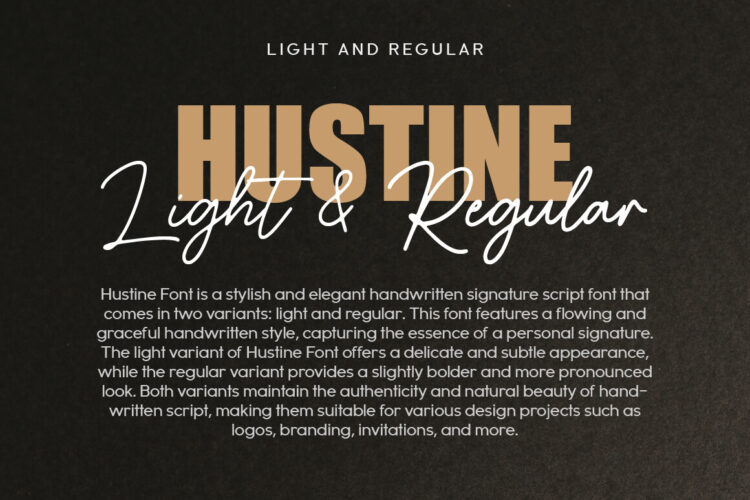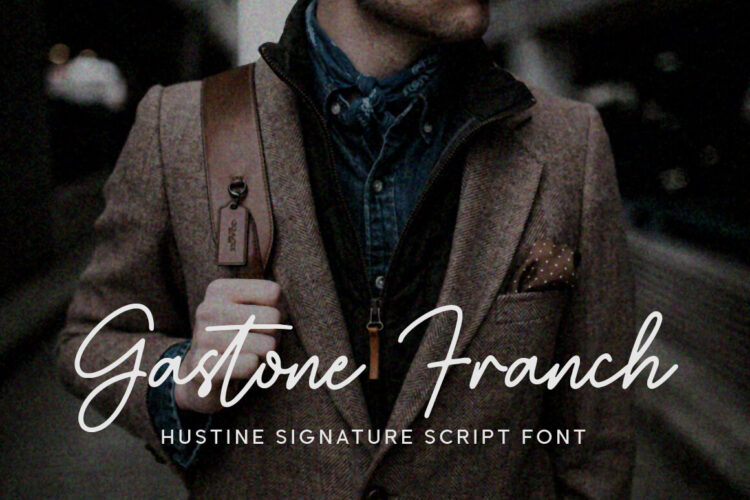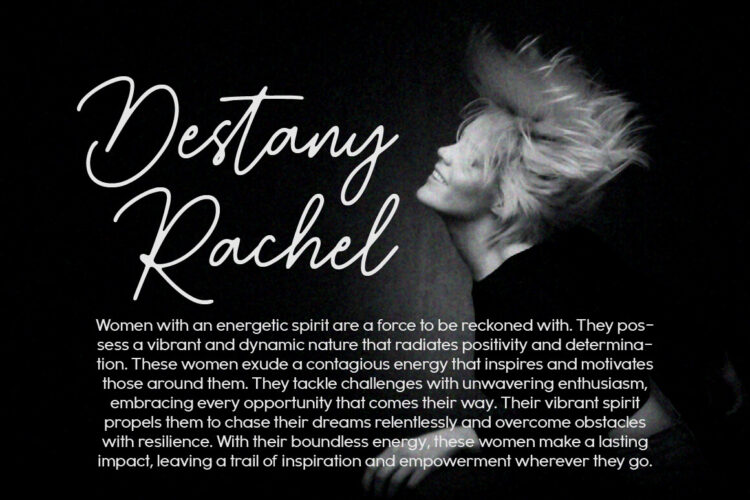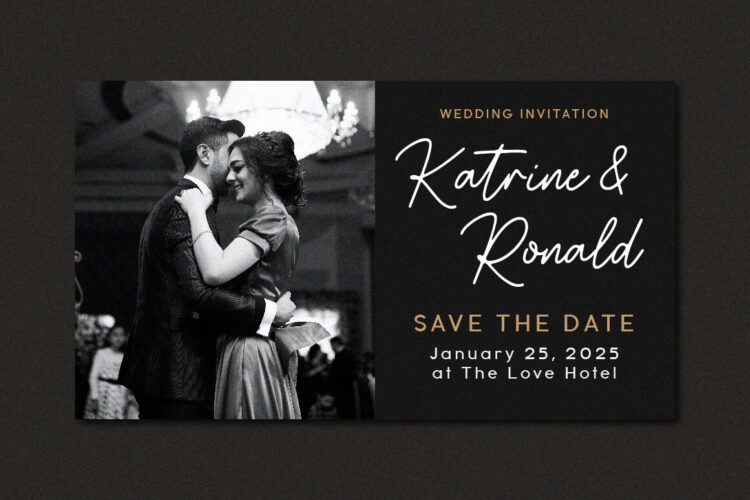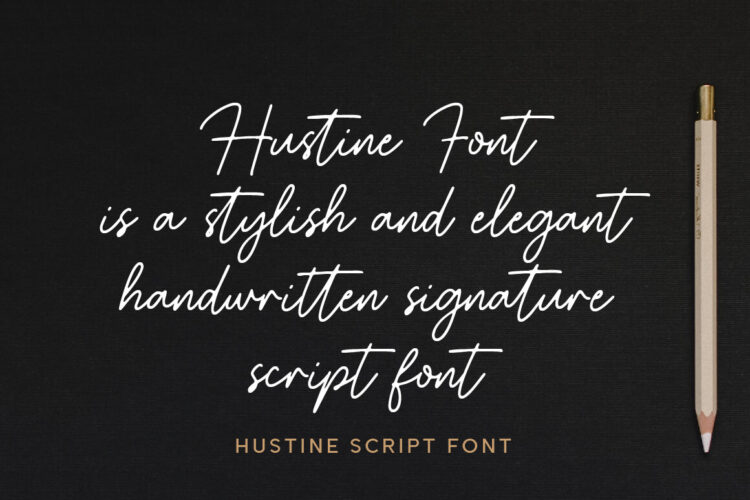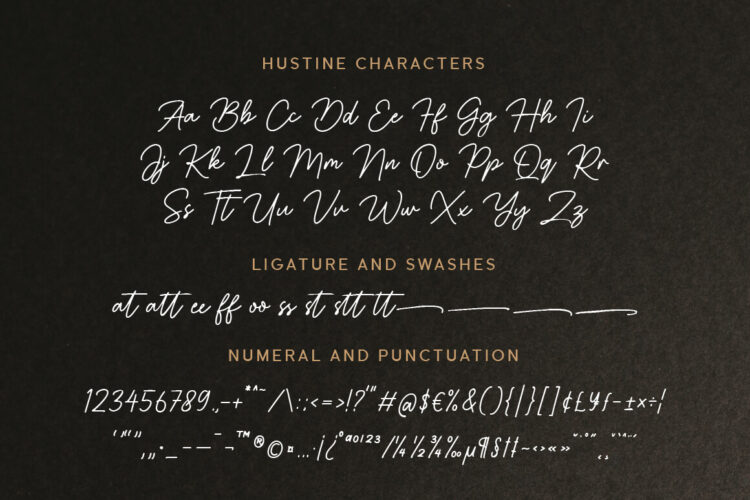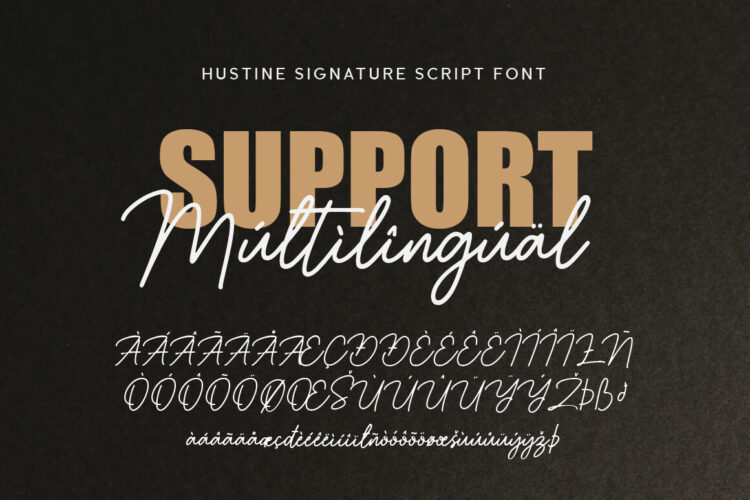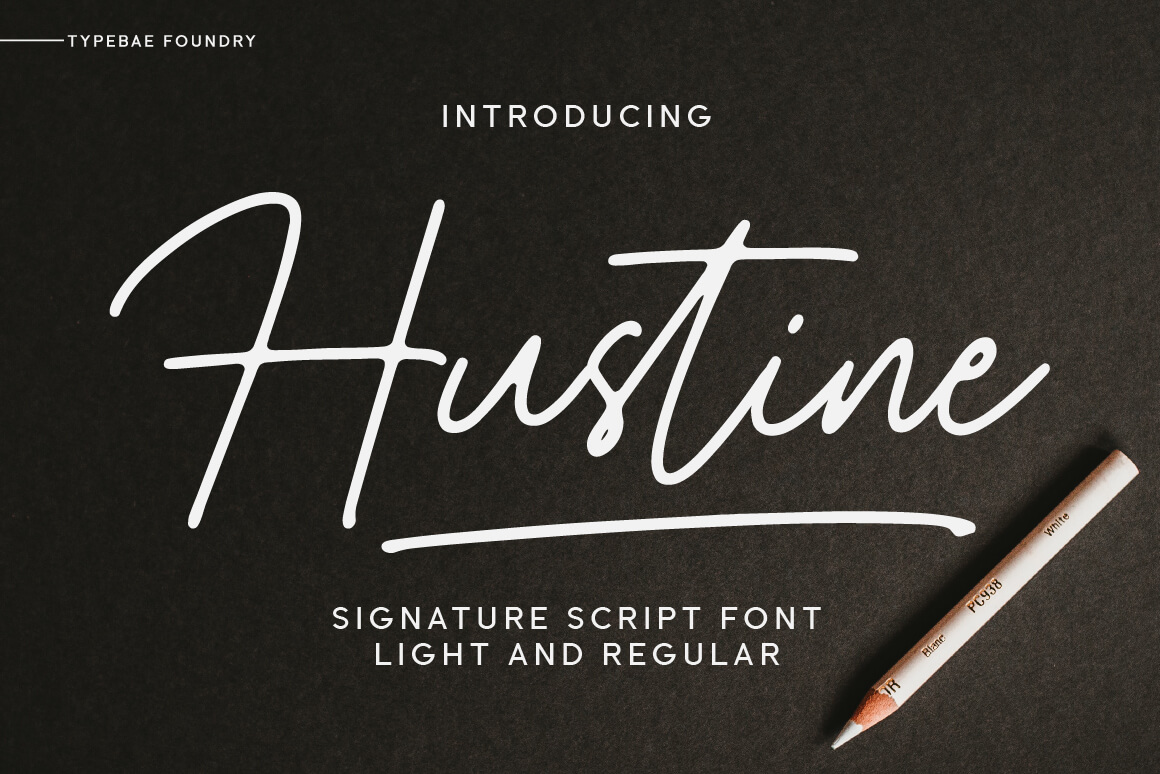
Hustine Font is a stylish and elegant handwritten signature script font that comes in two variants: light and regular. This font features a flowing and graceful handwritten style, capturing the essence of a personal signature. Both variants maintain the authenticity and natural beauty of handwritten script, making them suitable for various design projects such as logos, branding, invitations, and more.
- Hustine light and regular
- Full alphabet and punctuation
- Ligature and swashes feature
- Multilingual Support